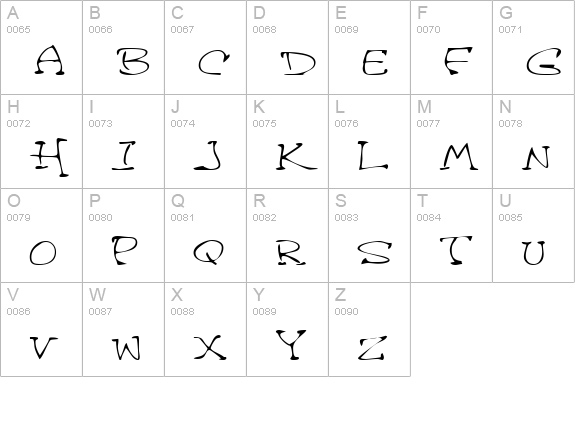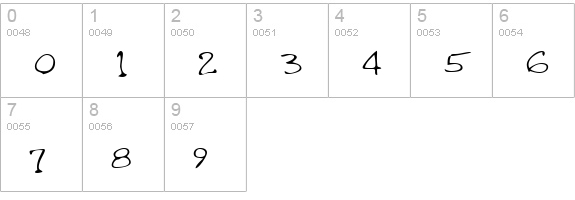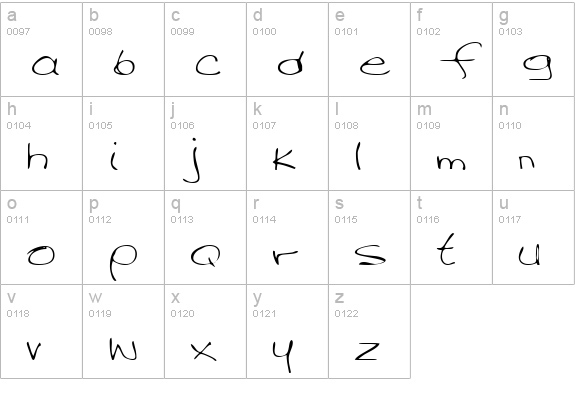
CandysHand Regular is the standard, neutral variant in the CandysHand typeface family \xE2\x80\x94 well suited to general body text, paragraphs, and standard typographic work.
CandysHand Regular font is a charming and playful typeface that exudes a sense of fun and whimsy. This font features soft curves and rounded edges, giving it a friendly and approachable appearance. Perfect for adding a touch of sweetness to your designs, CandysHand Regular is ideal for projects that require a touch of personality and creativity. Best of all, CandysHand Regular font is available for free download at FontsMarket.com. Whether you're working on a branding project, a greeting card design, or a website layout, this delightful font will bring a touch of joy to your work. Download CandysHand Regular today and add a dash of sweetness to your projects!